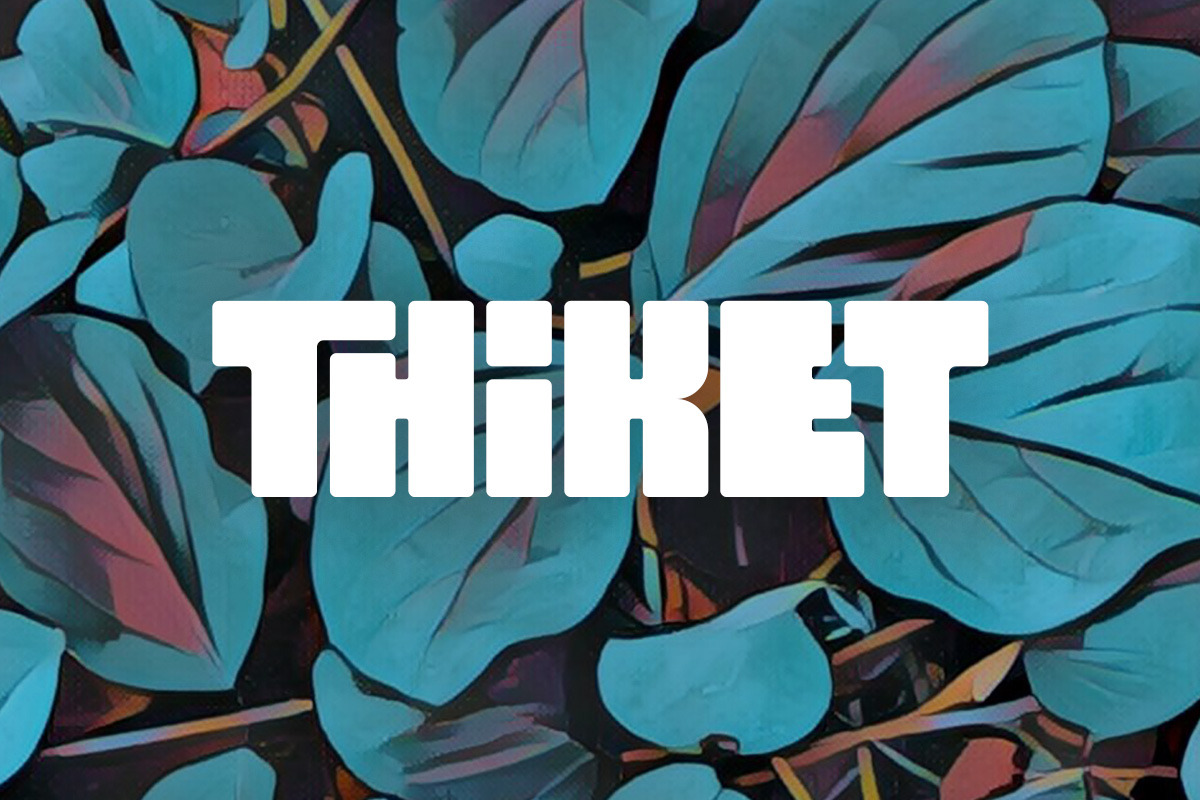
Thiket Typeface
Thiket is a personable font with uppercase letters, custom glyphs, numerals and punctuation. It includes regular and italic versions. You need a software like Illustrator with access to glyphs to use the custom letter pairs.